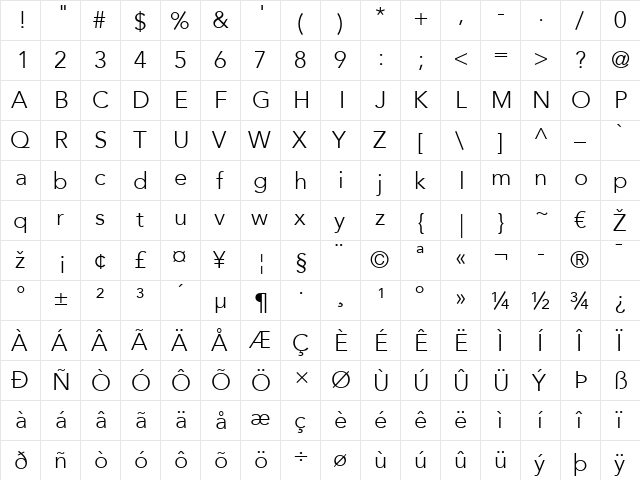
Avenir LT 35 Light Regular
Design Context for Avenir LT 35 Light Typeface
Avenir LT 35 Light takes a measured approach to typography — its balanced proportions and neutral character make it a reliable workhorse for both digital and print work. Its slender proportions lend an understated elegance to any composition.
Pro Tip: Pair Avenir LT 35 Light with a font of contrasting weight or personality to build a more expressive typographic hierarchy.